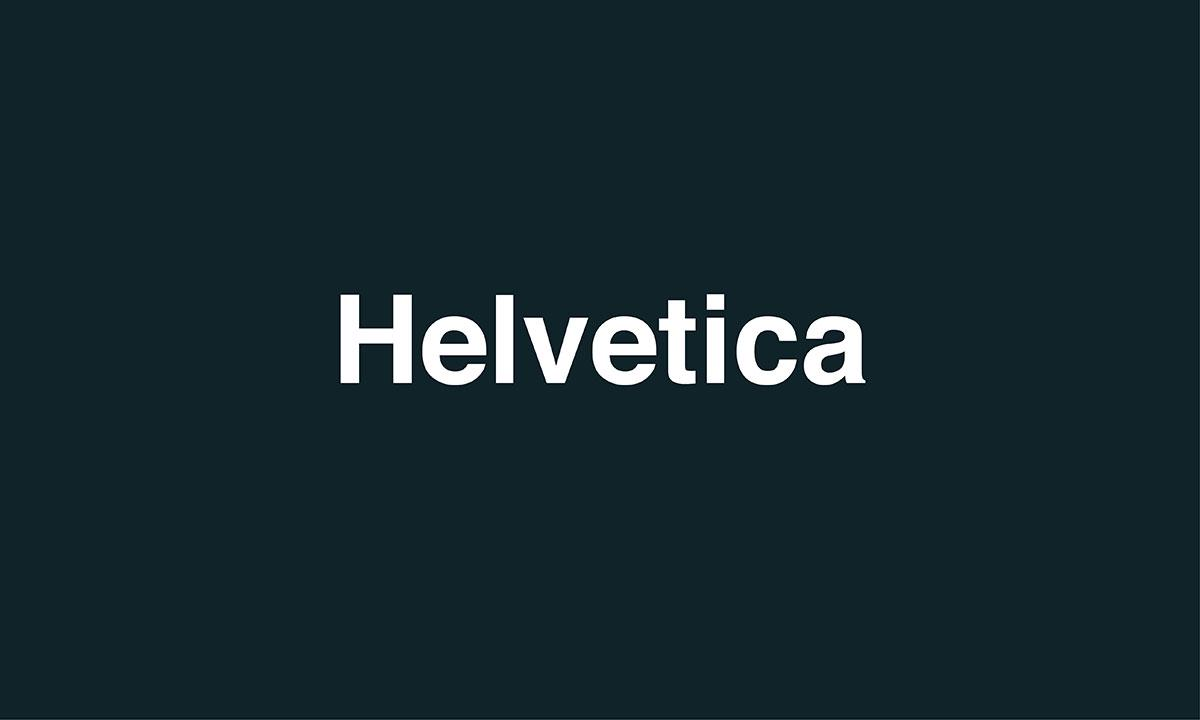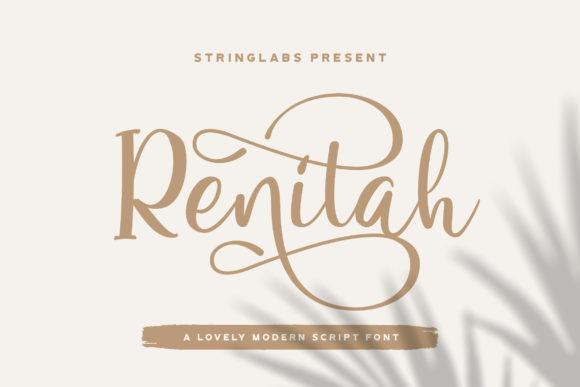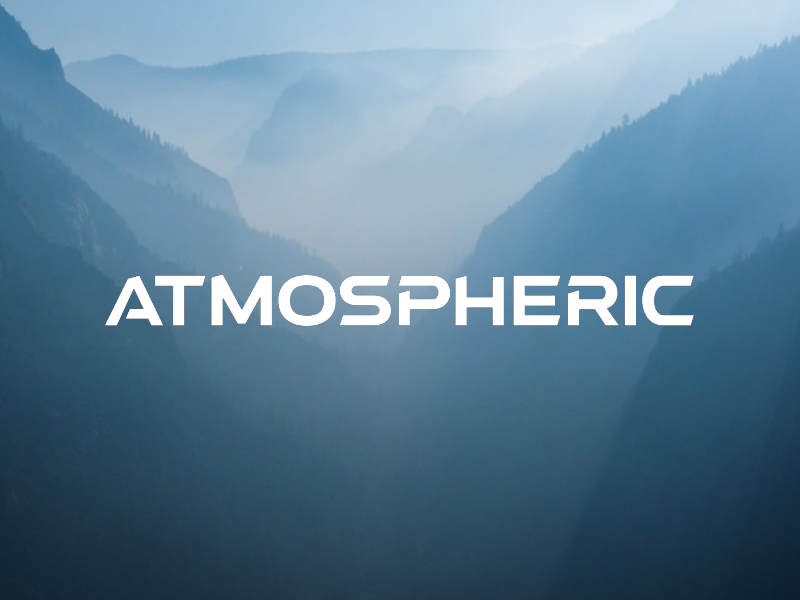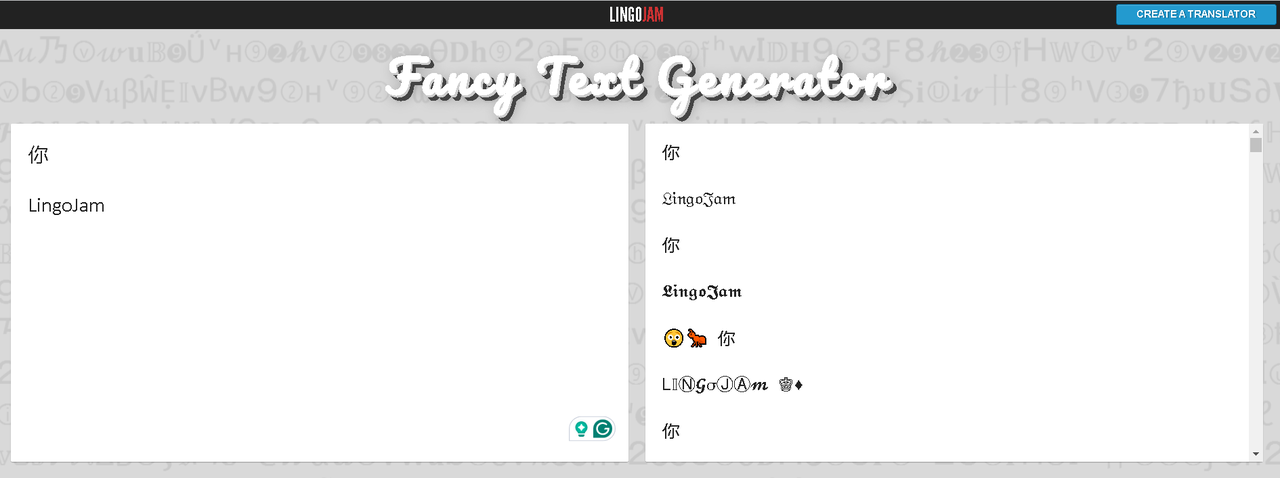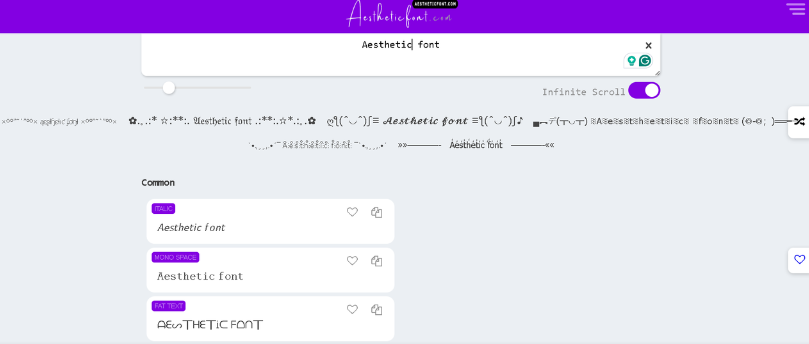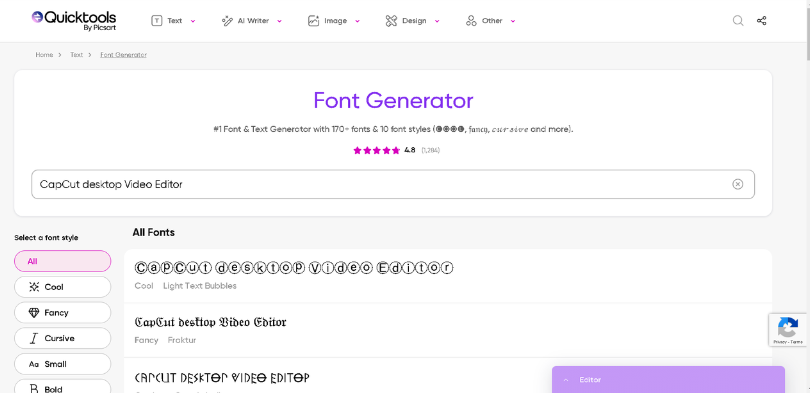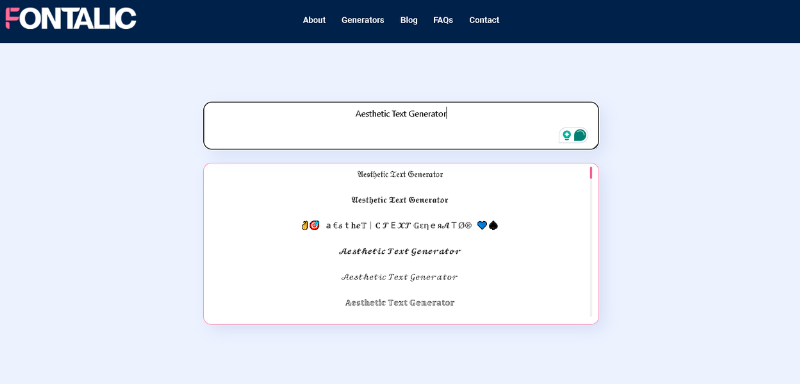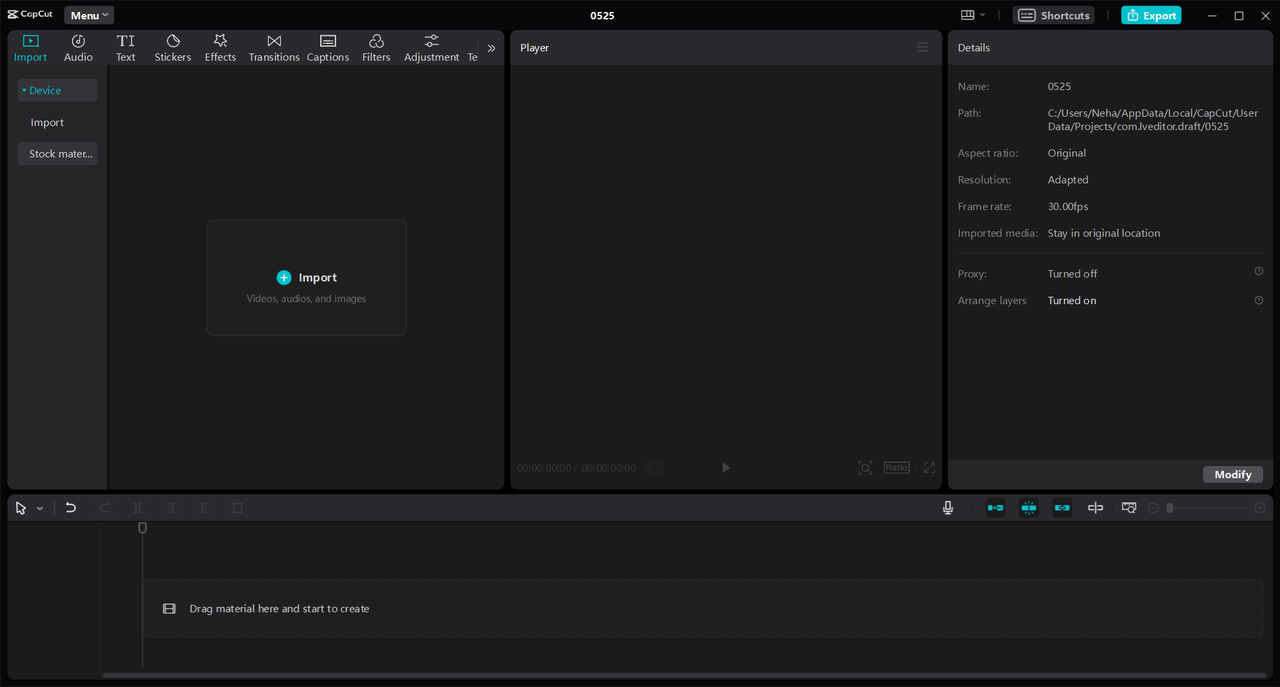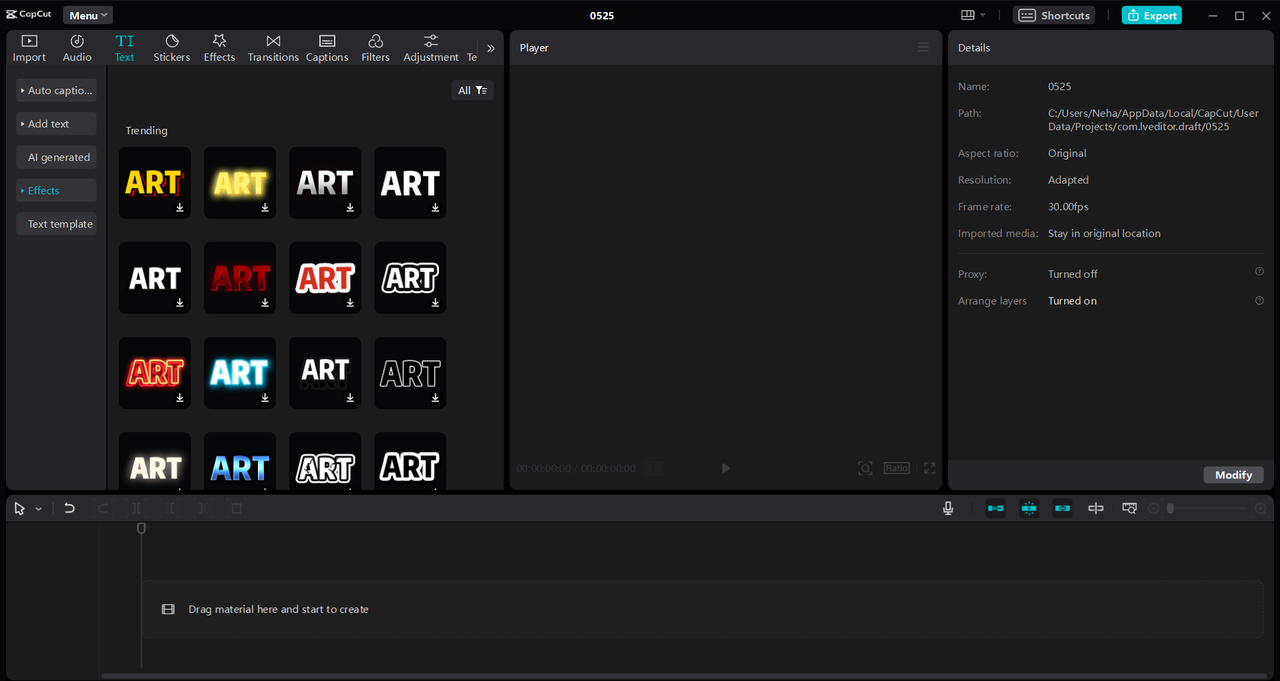
Best Aesthetic Font Generators for Beautiful Designs
Looking for an aesthetic font generator to elevate your projects? You’ve come to the right place! In this guide, we’ll introduce you to some of the best tools available for creating eye-catching text styles with ease. Whether you’re designing social media graphics, websites, logos, or personal art, these generators can help you achieve a professional and creative look.
No matter your style—elegant, modern, playful, or casual—there’s an aesthetic font generator out there for you. Each platform offers unique features that allow you to customize fonts to match your vision. Let’s dive in and discover how these tools can bring more fun and flair to your design process!
What Exactly Is an Aesthetic Font Generator?
An aesthetic font generator is an online tool that transforms ordinary text into visually appealing typography. These generators provide a wide variety of font styles—from classic and elegant to modern and quirky—helping you make any piece of text more attractive. Unlike standard font libraries where you simply download typefaces, these tools often use special Unicode characters and symbols to create decorative text effects.
People love using aesthetic font generators to make their social media posts, website headers, digital invitations, and branding materials stand out. By converting plain text into stylish, customized fonts, you can communicate your message more creatively and memorably.
5 Trendy Aesthetic Word Fonts in 2024
Selecting the right font can completely change the vibe of your design. Here are five popular aesthetic word fonts that are making waves this year:
Helvetica Font
Helvetica is a timeless sans-serif font loved for its clean and modern appearance. It’s highly readable and works well in both digital and print media, making it a top choice for professional branding and web design.
Helvetica font sample showcasing clean and modern sans-serif design Rustico font
Rustico Font
Rustico features a bold, hand-brushed style that gives off a rustic and authentic feel. It’s perfect for projects that need a personal, handmade touch, like logos, posters, or social media graphics.
Rustico Font sample highlighting bold, hand-brushed script design for logos and posters
Macbeth Font
Macbeth is a unique and playful typeface with sharp edges and a handwritten vibe. It’s great for adding an edgy yet fun feel to creative projects such as event invitations or banners.
Macbeth font sample
Renitah Font
Renitah is an elegant script font that radiates sophistication and charm. It’s often used for formal occasions like weddings, greeting cards, or high-end branding projects.
Renitah Font sample showcasing elegant script design
Atmosphere Font
Atmosphere is a minimalist, geometric font that feels both modern and futuristic. It works wonderfully for tech-related content, contemporary brands, and clean website layouts.
Atmosphere font sample displaying modern, minimalist geometric design
Top Aesthetic Font Generators to Explore
Now that you’re familiar with some trending aesthetic word fonts, let’s check out the tools that can help you create similar styles. These generators are user-friendly and can turn simple text into beautiful designs in just a few clicks. Whether you’re crafting social media content or digital artwork, an aesthetic font generator can help you achieve the look you desire.
Here are five highly recommended tools for generating aesthetic word fonts:
LingoJam
LingoJam is a free online tool that converts regular text into decorative symbols using Unicode characters. You can copy and paste the transformed text into websites, documents, or social media platforms. Do note that some platforms may not support all special characters, which can sometimes appear as blank boxes.
Key features include a simple interface, multi-language support, and a variety of font transformation options. It’s especially handy for social media enthusiasts and bloggers.
LingoJam aesthetic font generator showcasing multiple language support and various font transformations for aesthetic text creation
Aesthetic Font Generator
This tool is a one-stop solution for customizing text with numerous fonts, symbols, and decorative styles. Whether you’re updating your social media bio or designing digital messages, the Aesthetic Font Generator helps your text stand out.
It offers thousands of aesthetic text fonts, a user-friendly interface, a Lenny face generator, and even an emoji maker for added fun.
Aesthetic Font interface
Quicktools by Picsart
Quicktools by Picsart is a versatile and easy-to-use online tool for creating beautiful aesthetic fonts. It offers plenty of customization options, allowing users to turn plain text into visually engaging designs within minutes. It’s ideal for social media posts, marketing materials, and personal creative projects.
How can I make the font aesthetics in my designs better?
Start by experimenting with different aesthetic font generators to see which styles fit your project. Also, pay attention to color schemes, spacing, and overall layout. For videos, use tools like CapCut to combine fonts with music, effects, and animations for a polished final product.